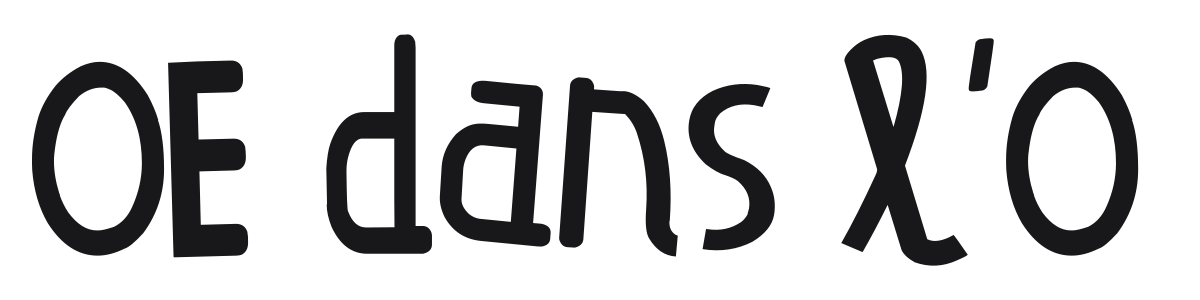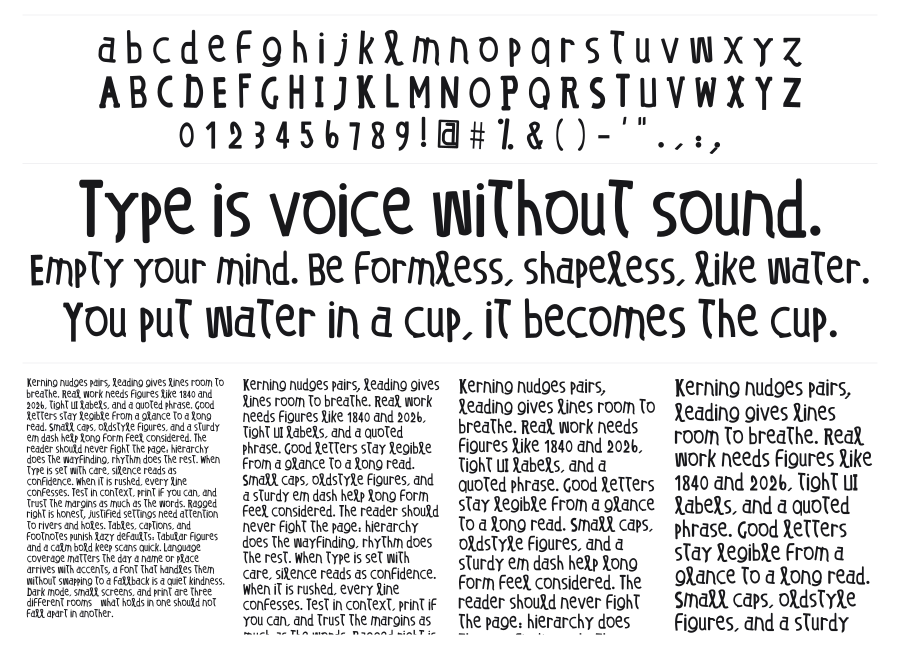
OE dans l'O
OE dans l'O is a casual handwritten sans-serif drawn with an energetic, slightly wobbly hand. Letters shift in size and angle like real hand lettering, giving it a genuine informal quality that feels personal rather than mechanical. The rounded terminals and medium-bold weight make it warm and legible at display sizes.